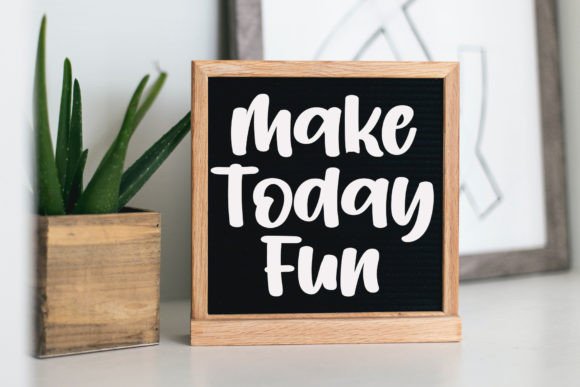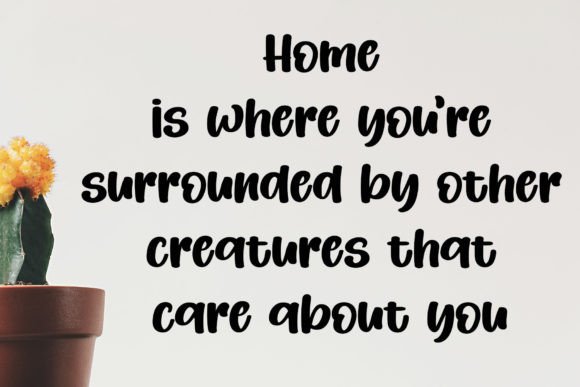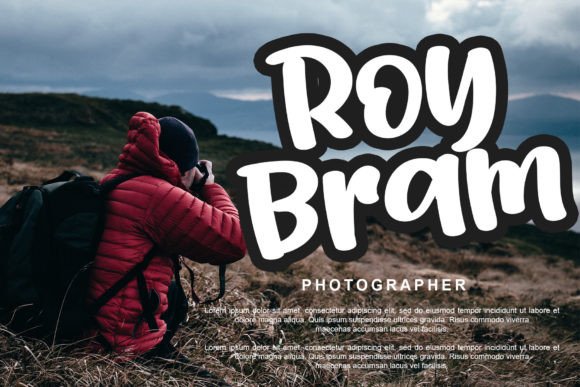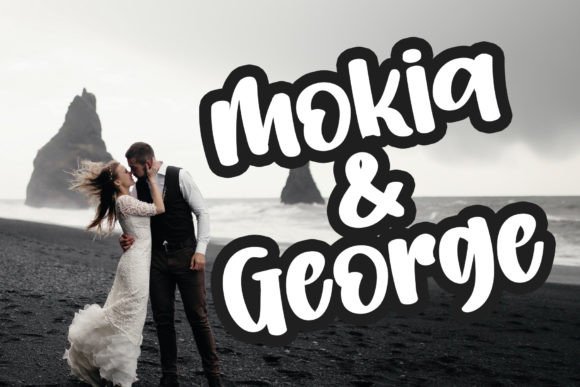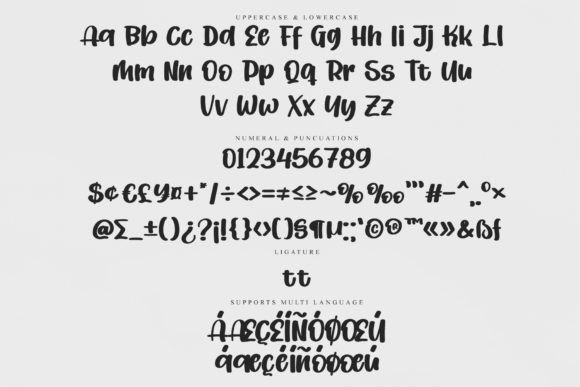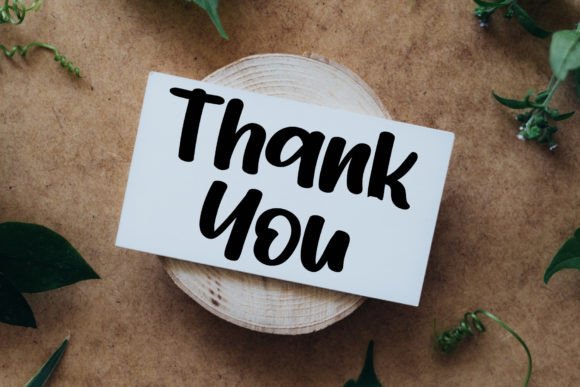
The Daily Planner Font: A Designer’s New Best Friend
I’ll never forget the time I was working on a magazine project, and my client asked me to create a visually stunning spread with a unique font. I scoured the internet, trying out font after font, but nothing seemed quite right. That’s when I stumbled upon the Daily Planner font. It was love at first sight! 💕
With its elegant lines and playful vibe, Daily Planner quickly became my go-to font for all things creative. In this article, I’ll share my honest review of this beautiful display font, provide a step-by-step guide on how to use it on various platforms, and explore similar fonts you might enjoy.
My Honest Review of Daily Planner Font
- ✨ Unique and eye-catching design: Daily Planner stands out from the crowd with its distinctive lettering style that’s perfect for making a statement.
- ✅ Highly versatile: This font is suitable for a wide range of projects, from magazine spreads and crafts to social media graphics and more.
- 💫 Elegant and playful: The font’s elegant lines and playful vibe make it perfect for designs that require a touch of sophistication and whimsy.
While Daily Planner is an amazing font, there are a few things to keep in mind:
- ⚠️ Limited use for body text: Due to its decorative nature, Daily Planner is best suited for headlines and titles rather than large blocks of text.
- 🤔 Some characters may require manual adjustment: As with any font, you may need to tweak certain characters to ensure optimal spacing and alignment.
One of the best things about Daily Planner is its support for OpenType features and glyphs. These features allow you to add an extra layer of creativity to your designs:
- Stylistic alternates: Switch between different font styles to create a unique look.
- Ligatures: Combine characters for a more elegant appearance.
- Glyphs: Access special characters and symbols to add visual interest to your design.
The Story Behind Daily Planner Font
Daily Planner was designed with the intention of creating a beautiful, elegant font that would inspire creativity and productivity. The designer aimed to craft a font that would be perfect for daily planners, journals, and other creative projects. With its unique lettering style and playful vibe, Daily Planner has become a favorite among designers and crafters alike.
| What is Daily Planner font best used for? | Daily Planner is perfect for display text, headlines, titles, and creative projects like magazines, crafts, and social media graphics. |